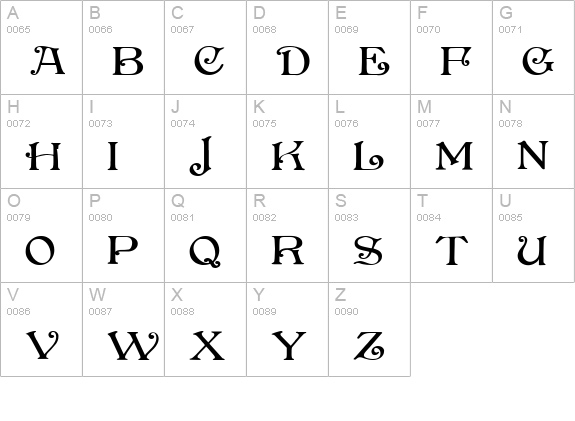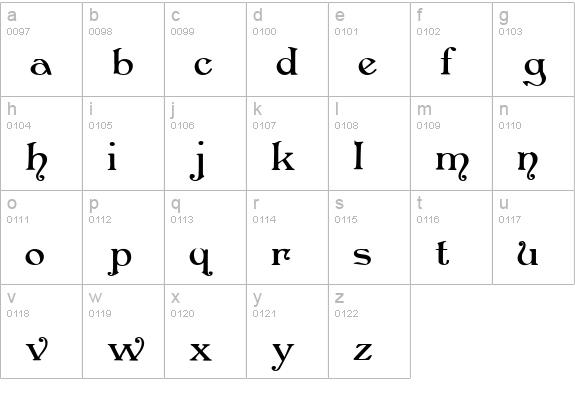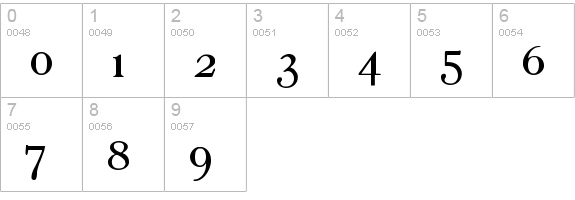
Penshurst Bold is a strong, high-contrast variant in the Penshurst typeface family \xE2\x80\x94 well suited to headlines, attention-grabbing titles, and strong calls-to-action.
Penshurst Bold font is a stunning display typeface that exudes confidence and sophistication. With its bold and impactful letterforms, this font commands attention and ensures that your message is heard loud and clear. Designed with meticulous attention to detail, Penshurst Bold showcases strong, geometric shapes that make it perfect for headlines, posters, logos, and branding projects. Its clean lines and distinctive curves create a harmonious balance between elegance and power, making it a versatile choice for any design application. But what sets Penshurst Bold apart from other fonts is that it is not only visually captivating, but also freely available to download at FontsMarket.com. Yes, you read that right – this exceptional font can be yours without any cost. Whether you are a professional designer or an aspiring artist, Penshurst Bold is a valuable addition to your font library. Its timeless appeal and versatility make it suitable for a wide range of creative projects, from print publications to digital media. So why wait? Take advantage of the opportunity to elevate your designs with Penshurst Bold, the free font that combines style, impact, and accessibility. Download it now at FontsMarket.com and let your creativity soar.